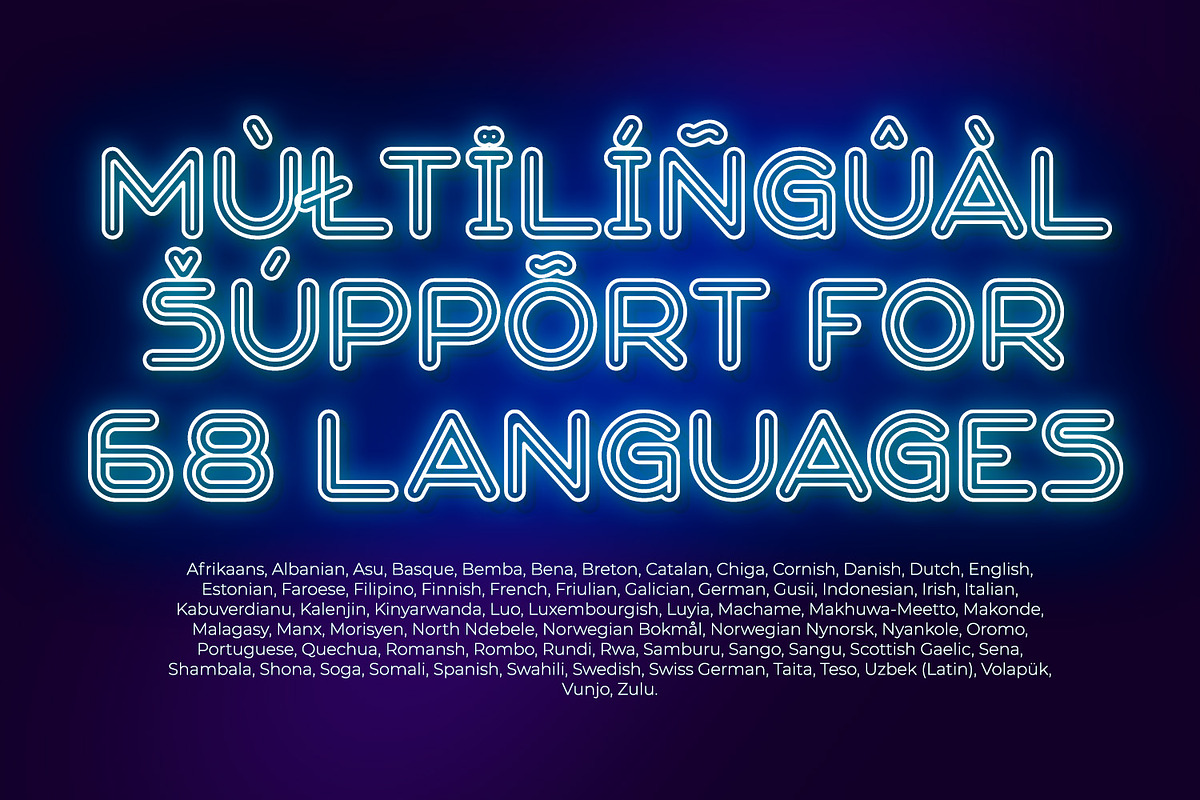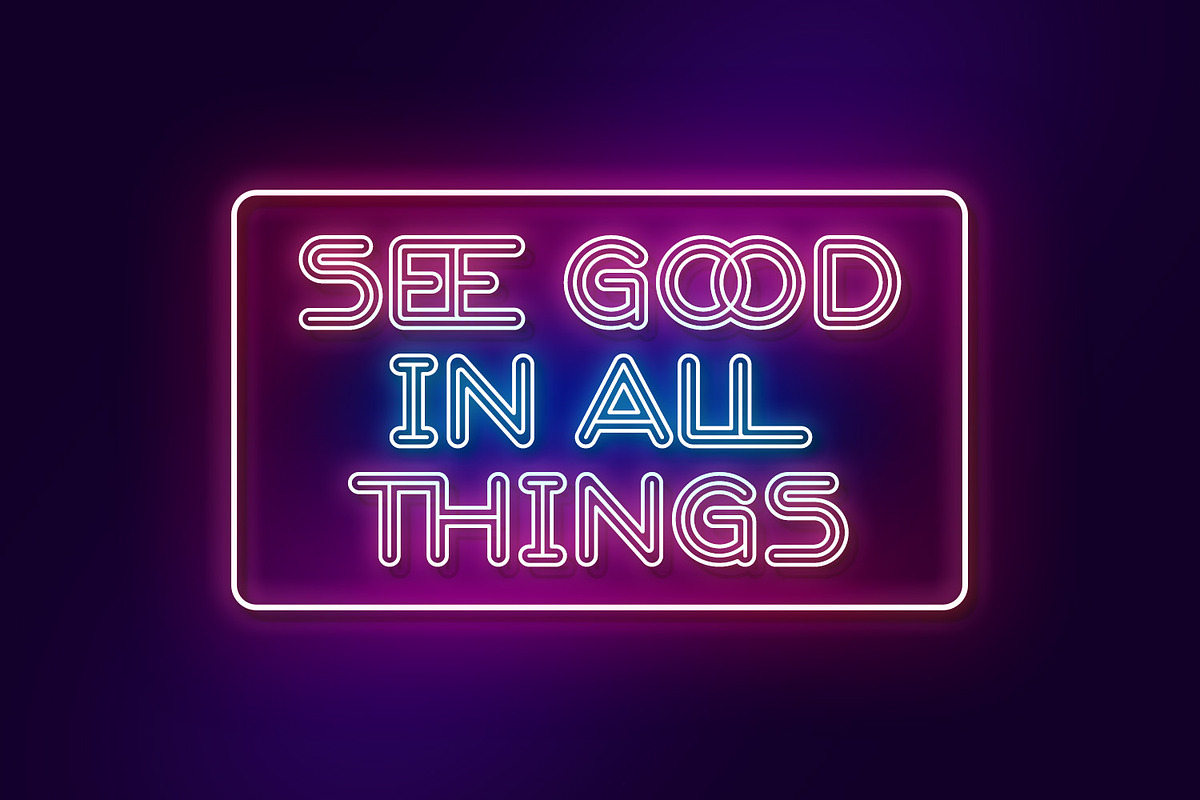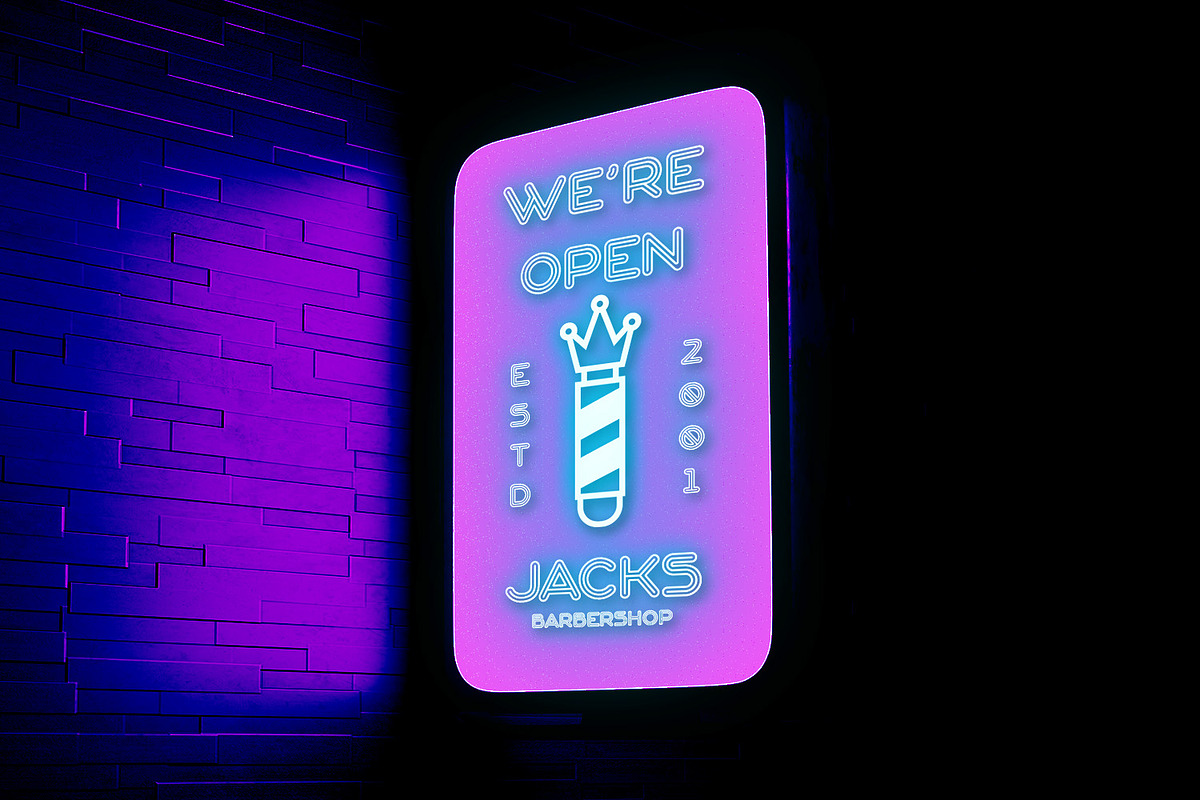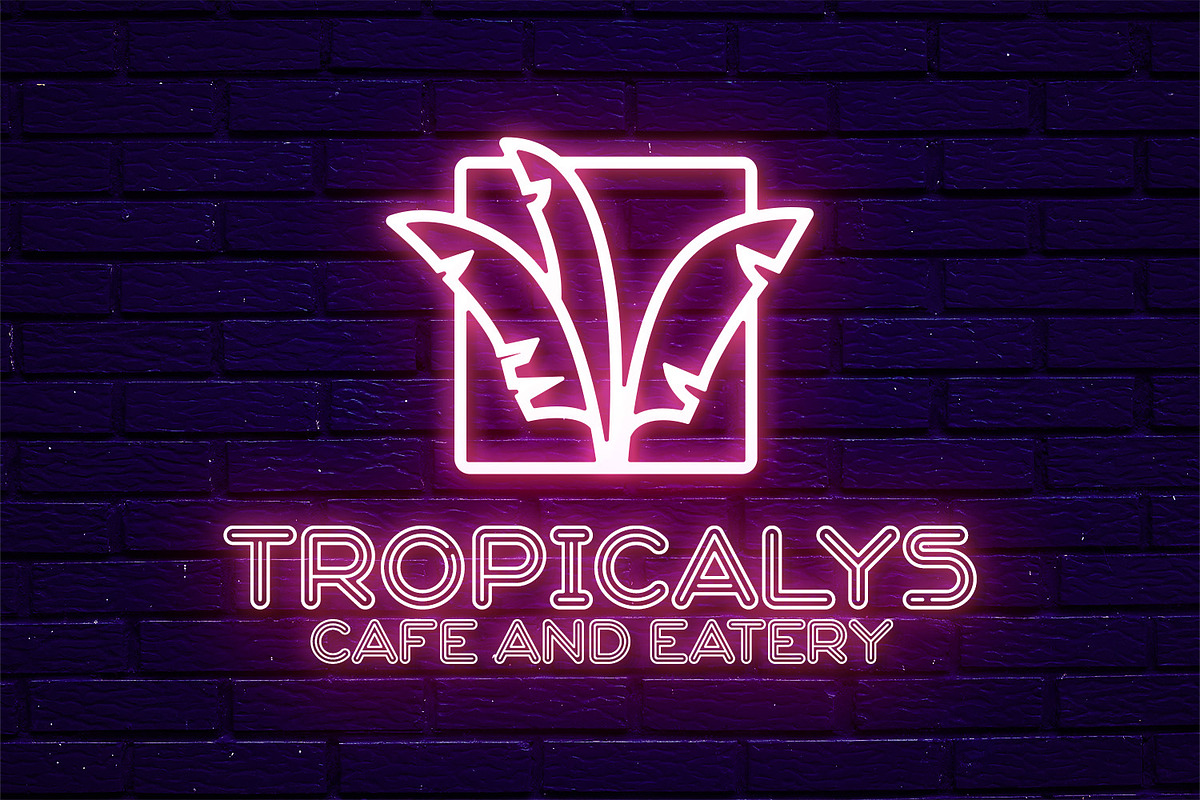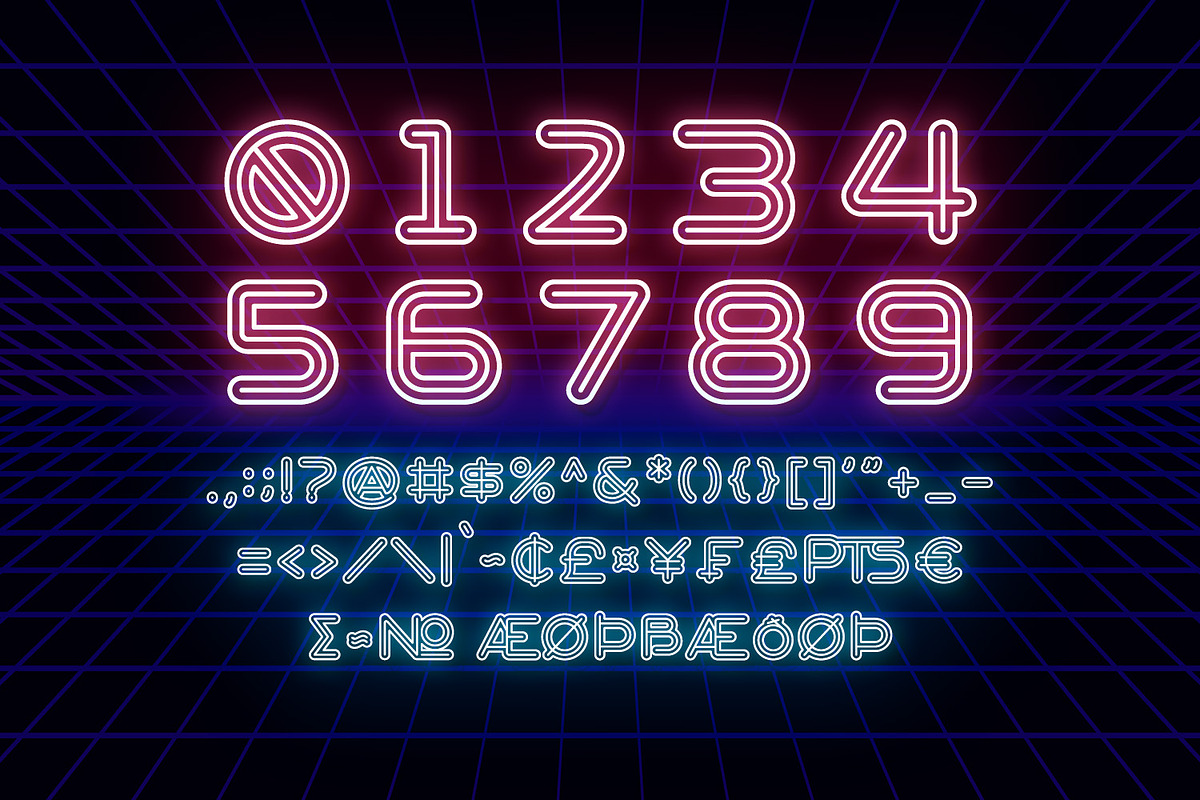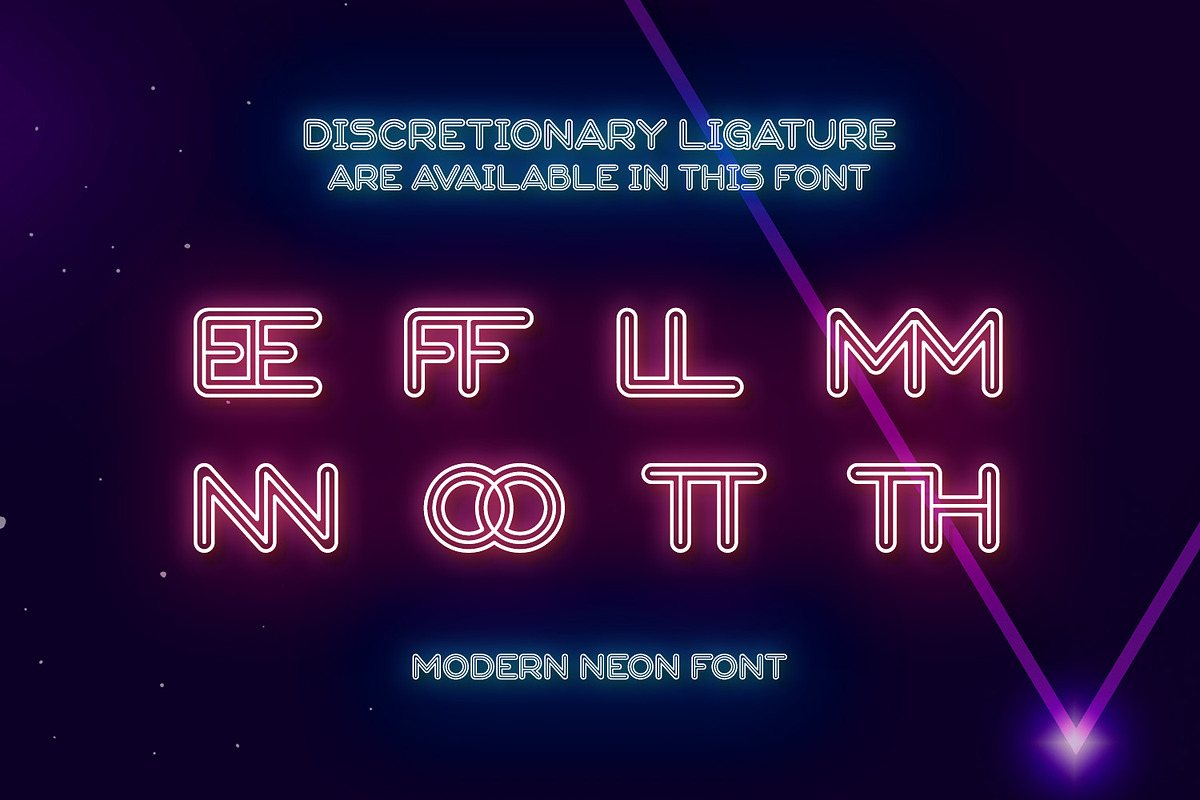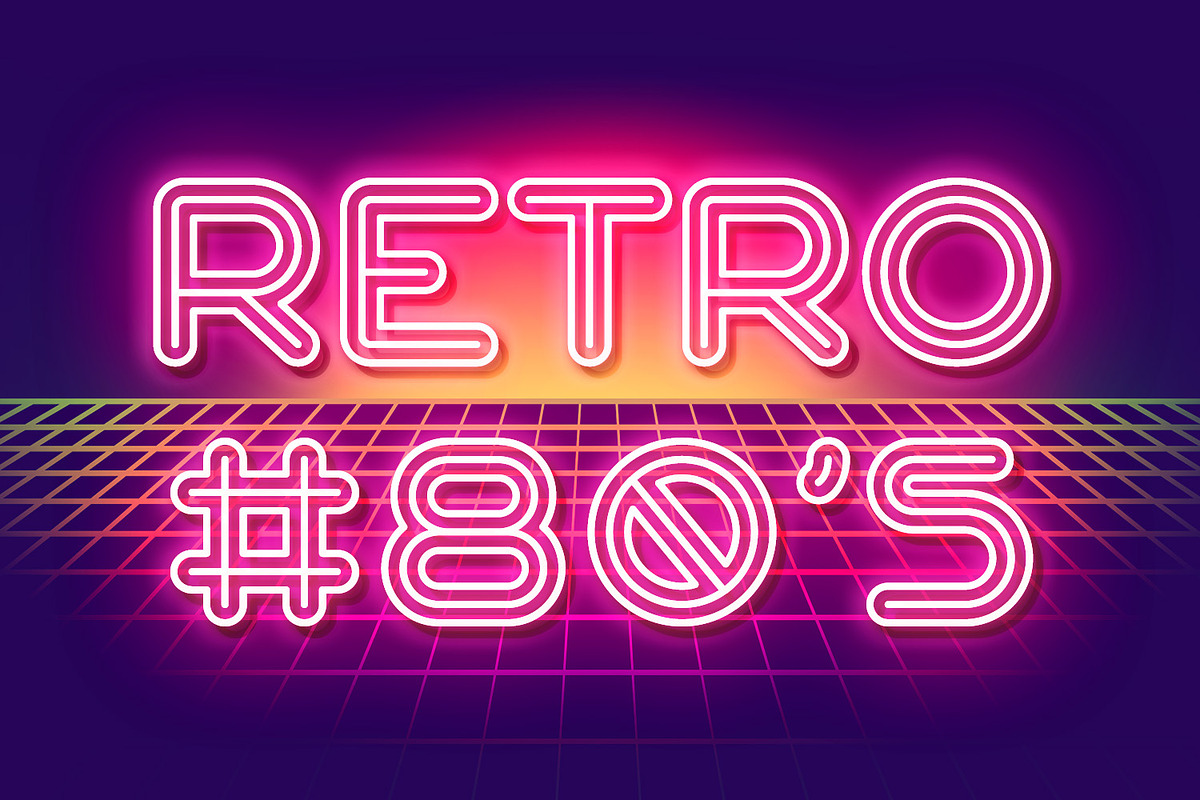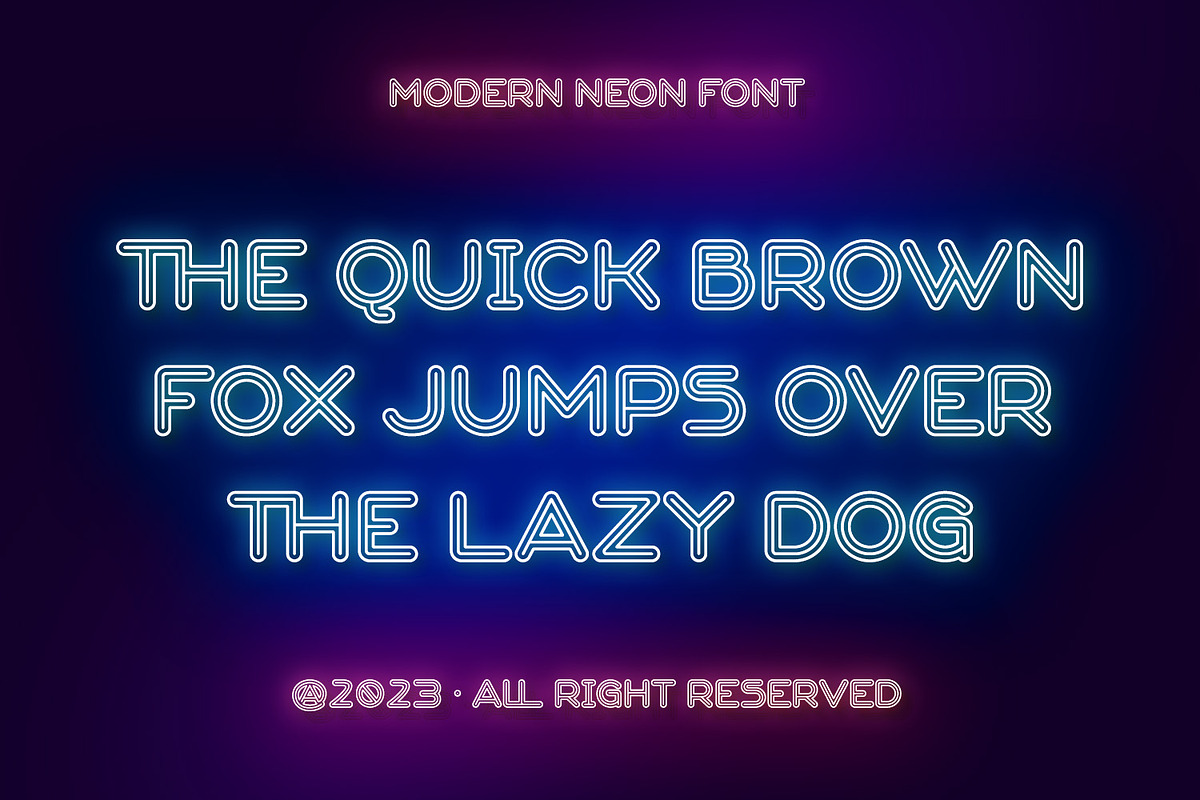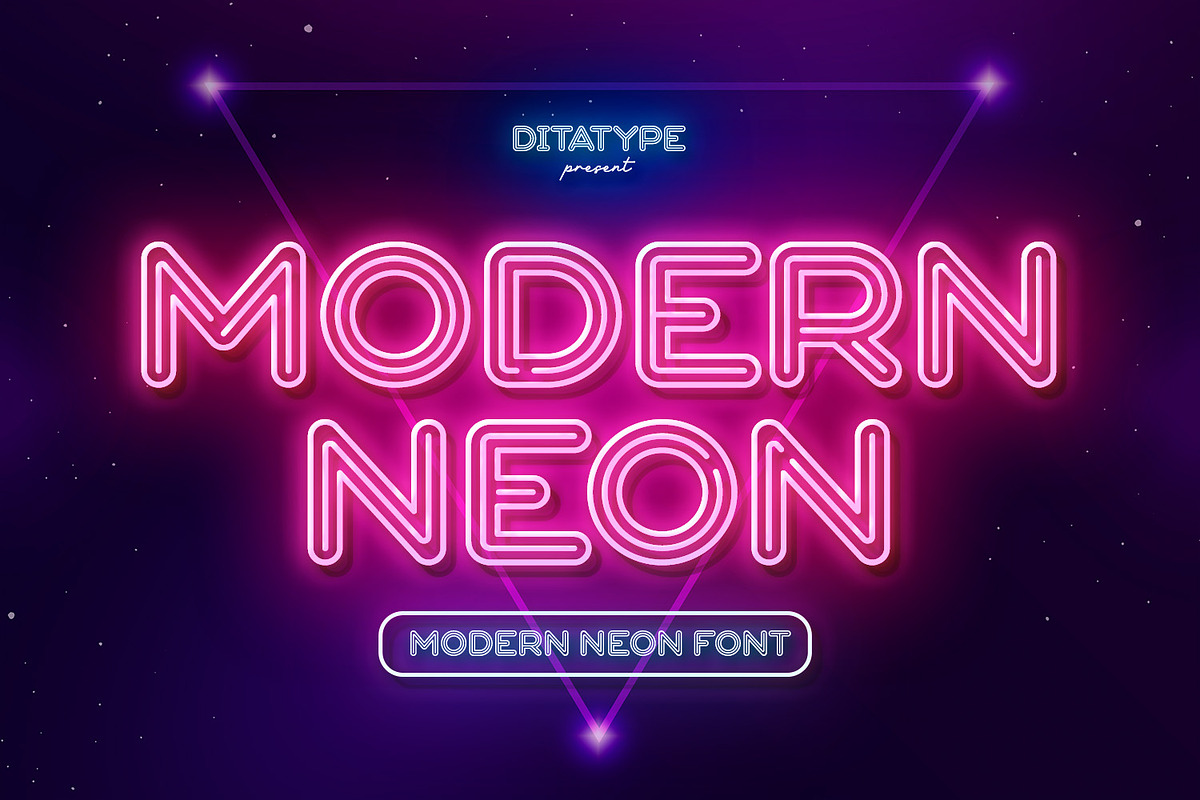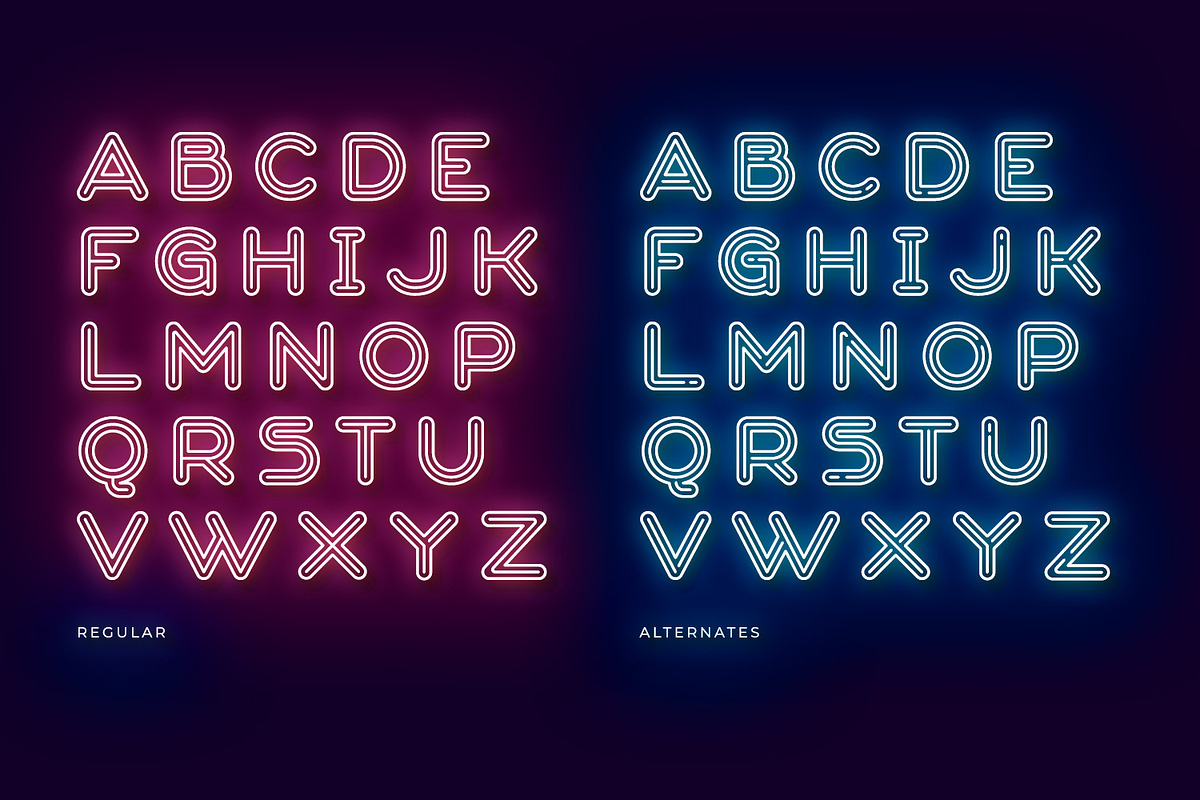
Modern Neon
Modern Neon is an audacious display font that combines the allure of neon lights with an array of captivating lines. With its uppercase letterforms, this typeface commands attention, creating a visually stunning experience that leaves a lasting impression. The defining feature of Modern Neon lies in its bold and adventurous lines that adorn each letter. These radiant lines flow dynamically throughout the characters, adding an element of complexity and intrigue. The interplay of these luminous lines creates a visual spectacle, captivating the viewer's gaze and drawing them into a world of electrifying typography. Inspired by the vibrant glow of neon signs, Modern Neon exudes a futuristic energy. The font's luminosity casts a vivid hue, evoking a sense of innovation and modernity. Each letter pulsates with an otherworldly glow, creating a striking visual impact that cannot be ignored. Each letter of this font has been meticulously crafted to strike a balance between legibility and decorative intricacy. The interconnected lines add depth and movement to the characters, enhancing the overall composition without compromising readability. The result is a font that exudes creativity and boldness while ensuring your message remains clear and impactful. You can also enjoy the various features available in this font. Enjoy the various features available in this font.
The strong and bold strokes demand attention, making this font perfect for headlines, titles, and impactful statements. Whether you're creating posters, branding materials, digital artwork, or anything in between, this font will add a daring and captivating element. It particularly shines in applications related to technology, gaming, fashion, and futuristic themes. Find out more ways to use this font by taking a look at the font preview.